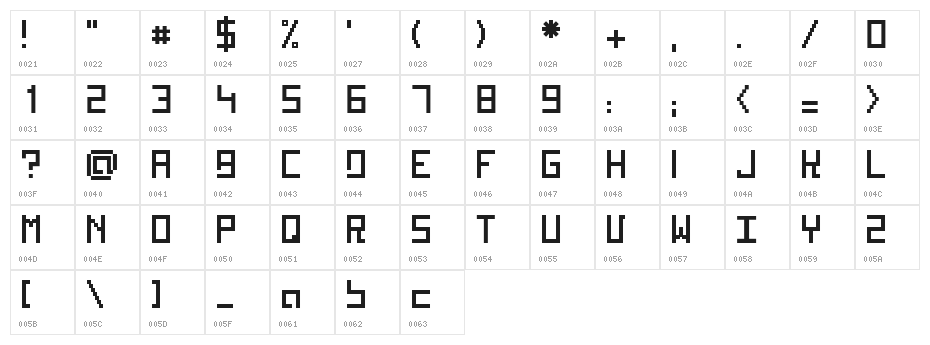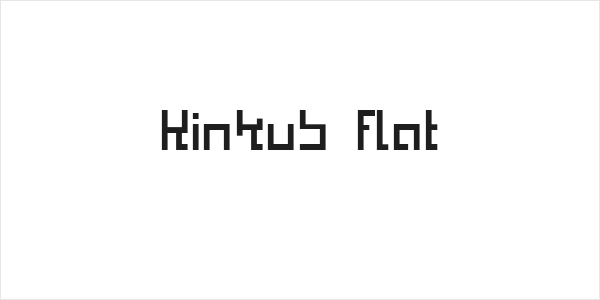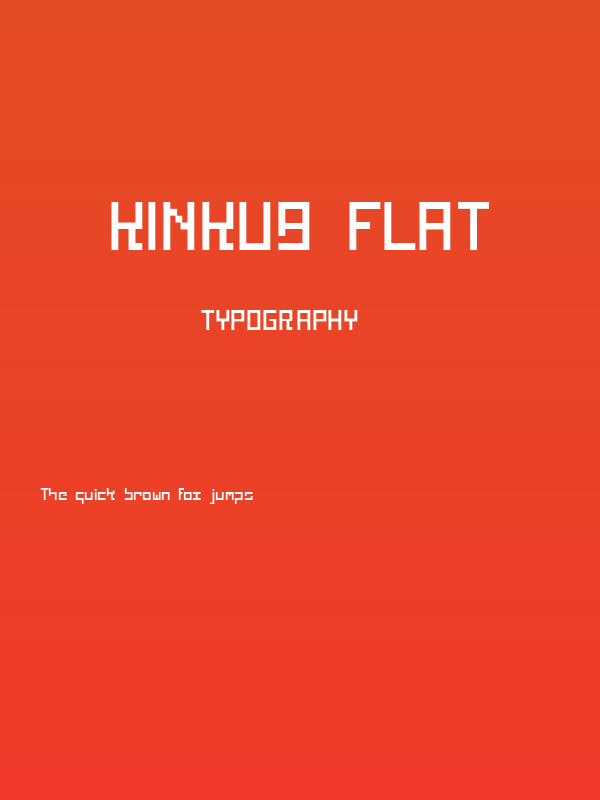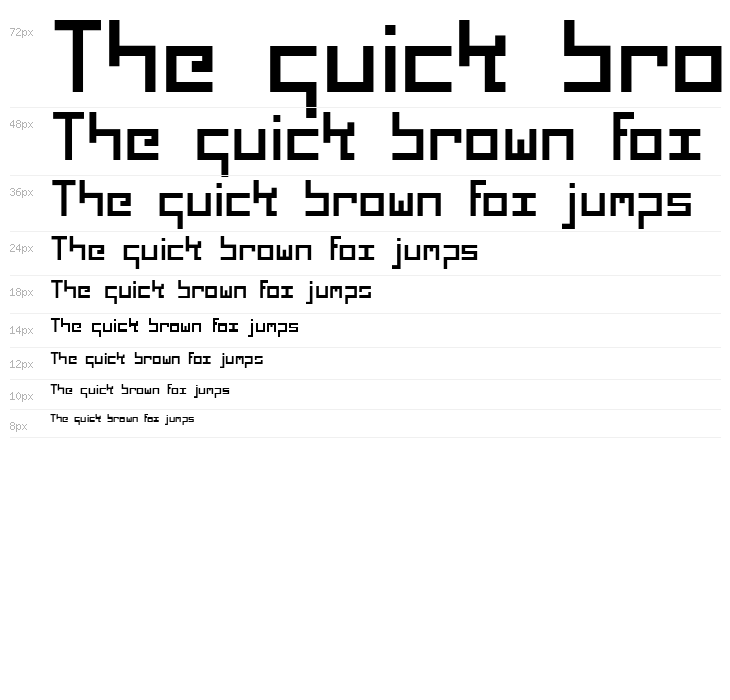
Kinkub flat Font
Kinkub flat Description
This font exhibits a bold, geometric style with a distinctly modern and digital aesthetic. The characters are constructed with straight lines and right angles, creating a blocky and pixelated appearance reminiscent of early computer graphics or retro video games. The uppercase and lowercase letters maintain a consistent height, contributing to a uniform and structured look. The numerals and special characters follow the same design principles, ensuring a cohesive visual identity across all glyphs. This font's unique style makes it suitable for projects that require a futuristic or tech-inspired theme.
Use CaseLogos, Headlines, Digital Art
Proposed ProjectsIdeal for tech-themed designs, video game graphics, digital art projects, and futuristic branding.